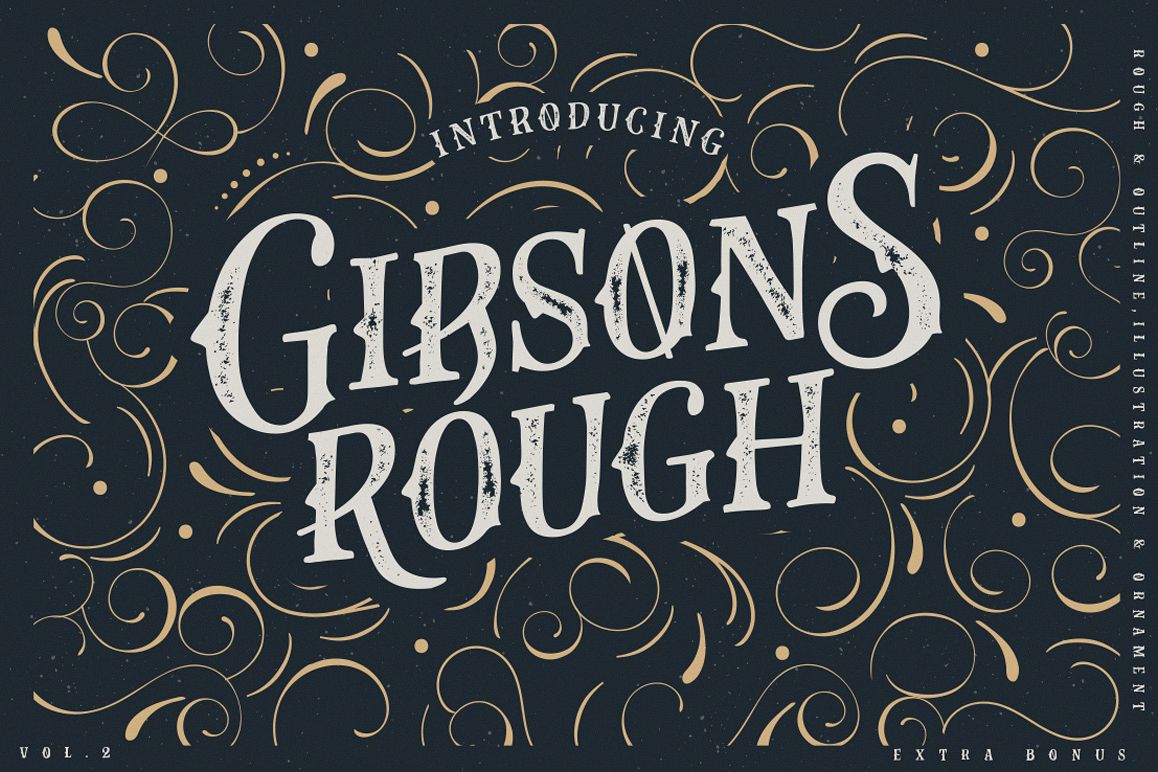
Gibson Co. Vol. 2 Rough
Gibsons Co Vol.2 is a beautiful font family and vintage font, that are combined rough and outline into pretty package. You will see this combination more in badges and display.Gibsons Co Vol.2 a typeface classic taste ,very suitable as to make a design choice for books, magazines, packaging, branding ,logotype, website header, fashion design, poster, clothing apparel, quotes and will add a beautiful touch of handmade love to your projects- use it for label designs, headlines, signage, posters, greeting cards, letterhead, wedding gift and more. To enable the OpenType Stylistic alternates and ligatures.Include